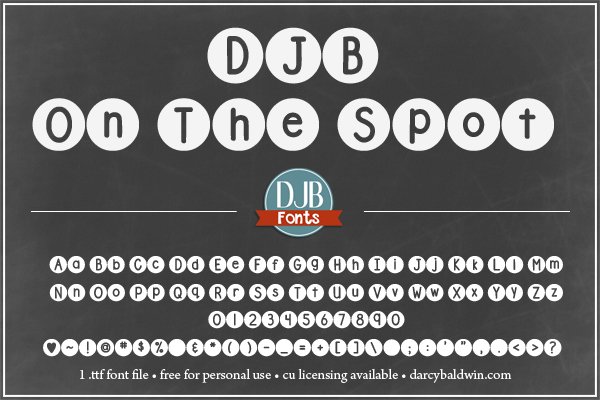
Preview and download DJB On the Spot Font. Created by Darcy Baldwin in Fancy Decorative styles with Free for personal use license.
A circle font perfect for highlighted text. This font is free for personal use and non-profit use only. If you'd like to use this font for a commercial use (your business, a logo, creating marketing product, a printable, etc.)you can purchase it http://darcybaldwin.com/commercial-use/ https://www.facebook.com/DarcyBaldwinFontography |